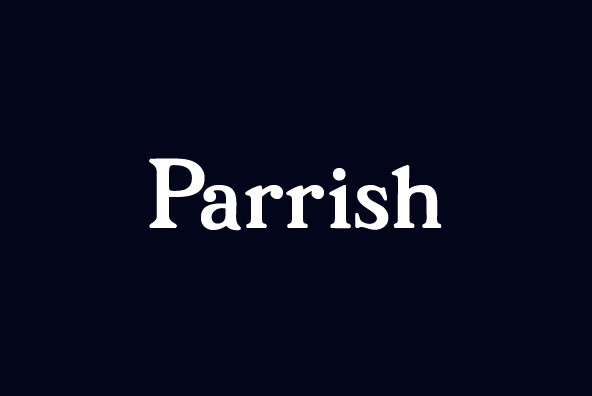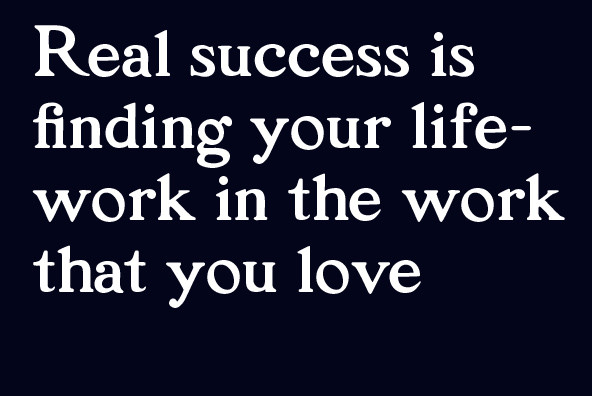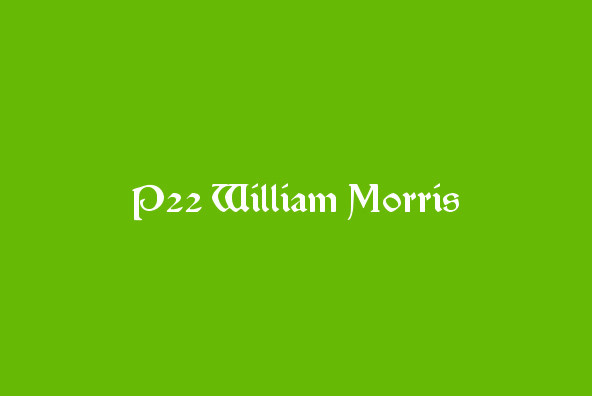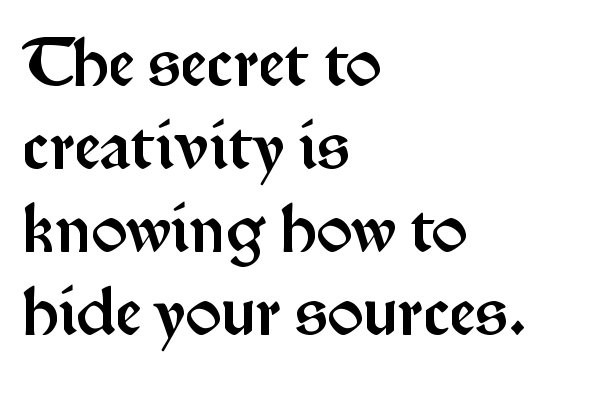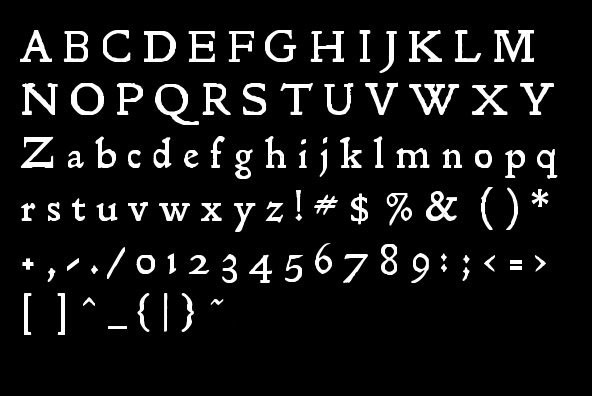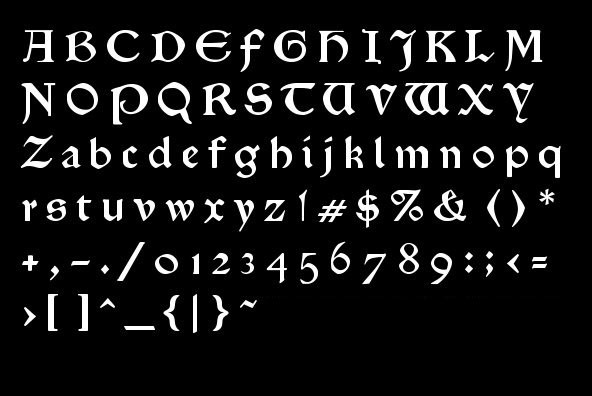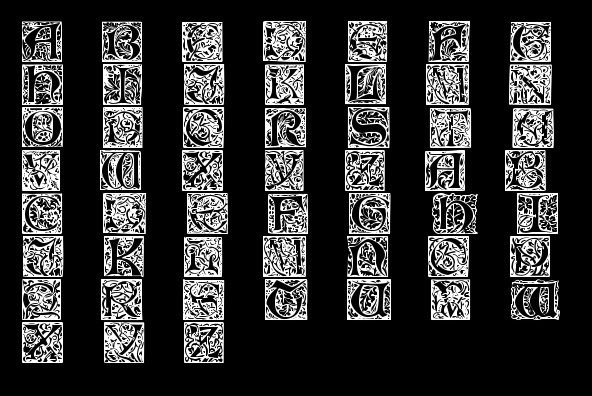
P22 Arts & Crafts Font Pack
16 fonts based upon lettering and type styles from the Arts and Crafts movements of England and the United States in the late 19th and early 20th centuries.
16 fonts based upon lettering and type styles from the Arts and Crafts movements of England and the United States in the late 19th and early 20th centuries. Craftsmen-Artists such as Frank Lloyd Wright, Dard Hunter, Maxfield Parrish and William Morris integrated lettering into their own unique arts but all share the Arts and Crafts aesthetic of hand-craftsmanship in an age if industrialism. These fonts are also available in individual sets, but this collection offers substantial savings.